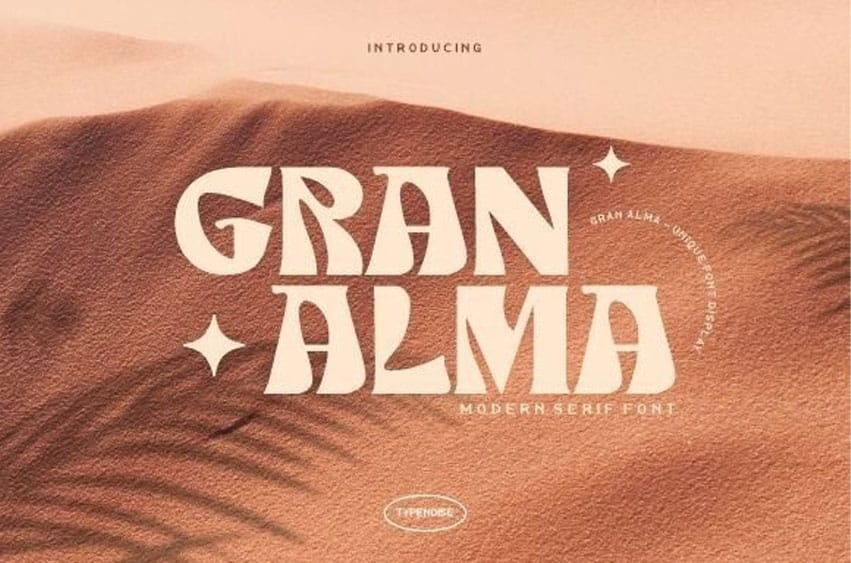
Gran Alma Font Ignite the dawn of ingenuity with the aesthetic allure of ‘Gran Alma,’ a font sure to inspire you! Beautifully bridging the gap between vintage charm and contemporary flair, Gran Alma promises a unique harmony between the old and the new. Its refined elegance weaves a classic narrative while its vibrant modernity propels you into the future.
The clarity and playfulness of Gran Alma make it not only visually engaging but also refreshingly fun to use. Experience the whimsical fusion of past and present in your projects with Gran Alma!